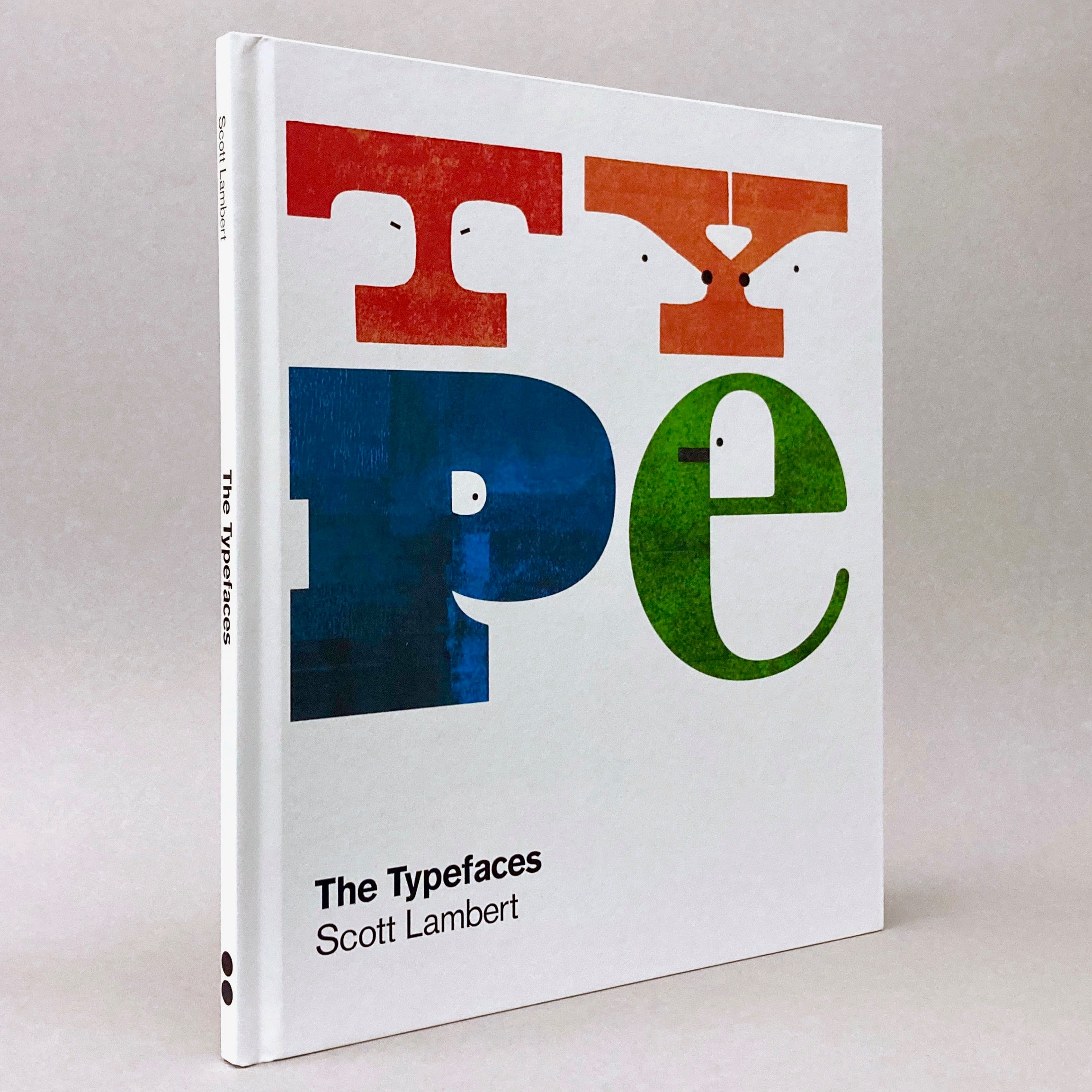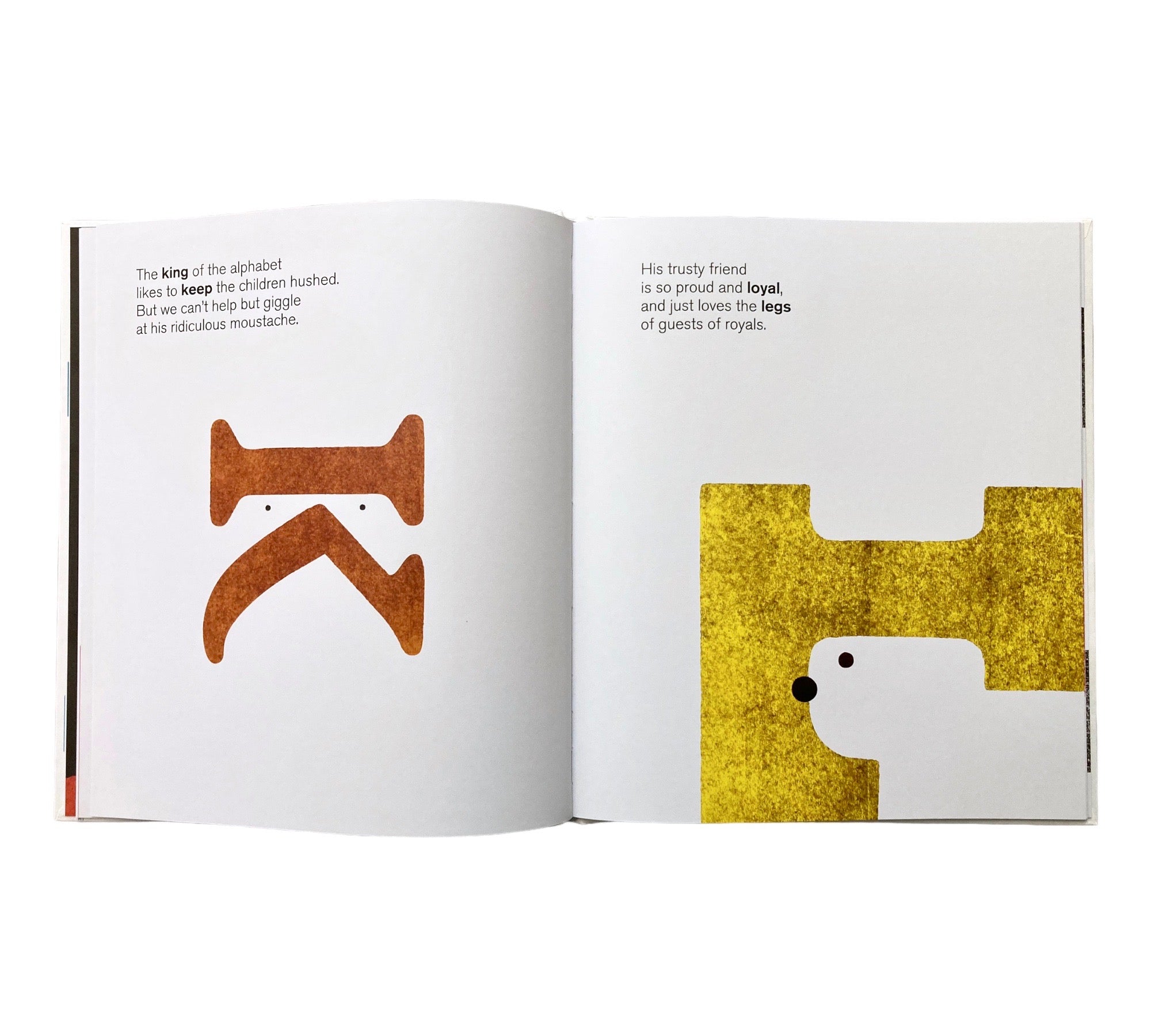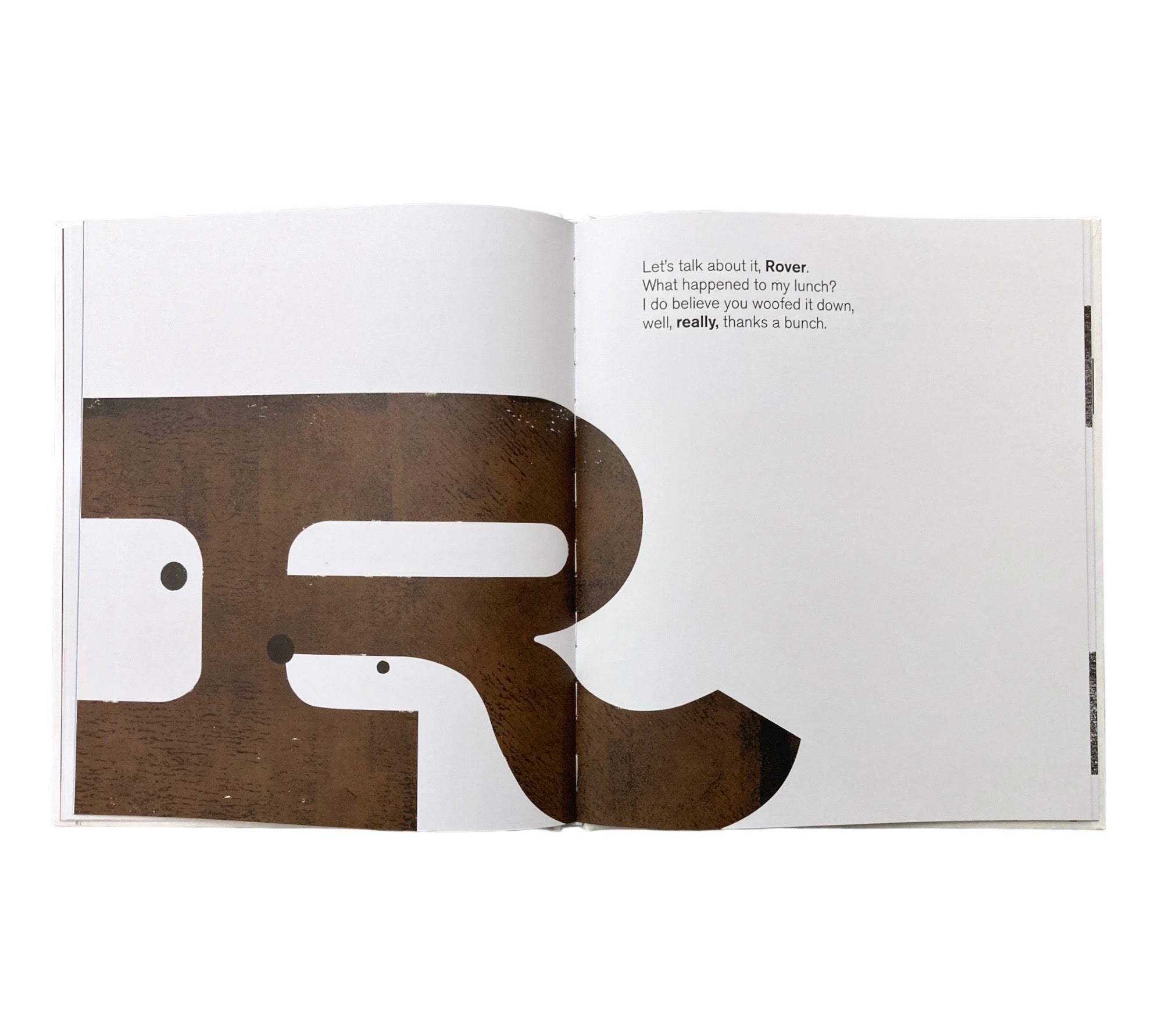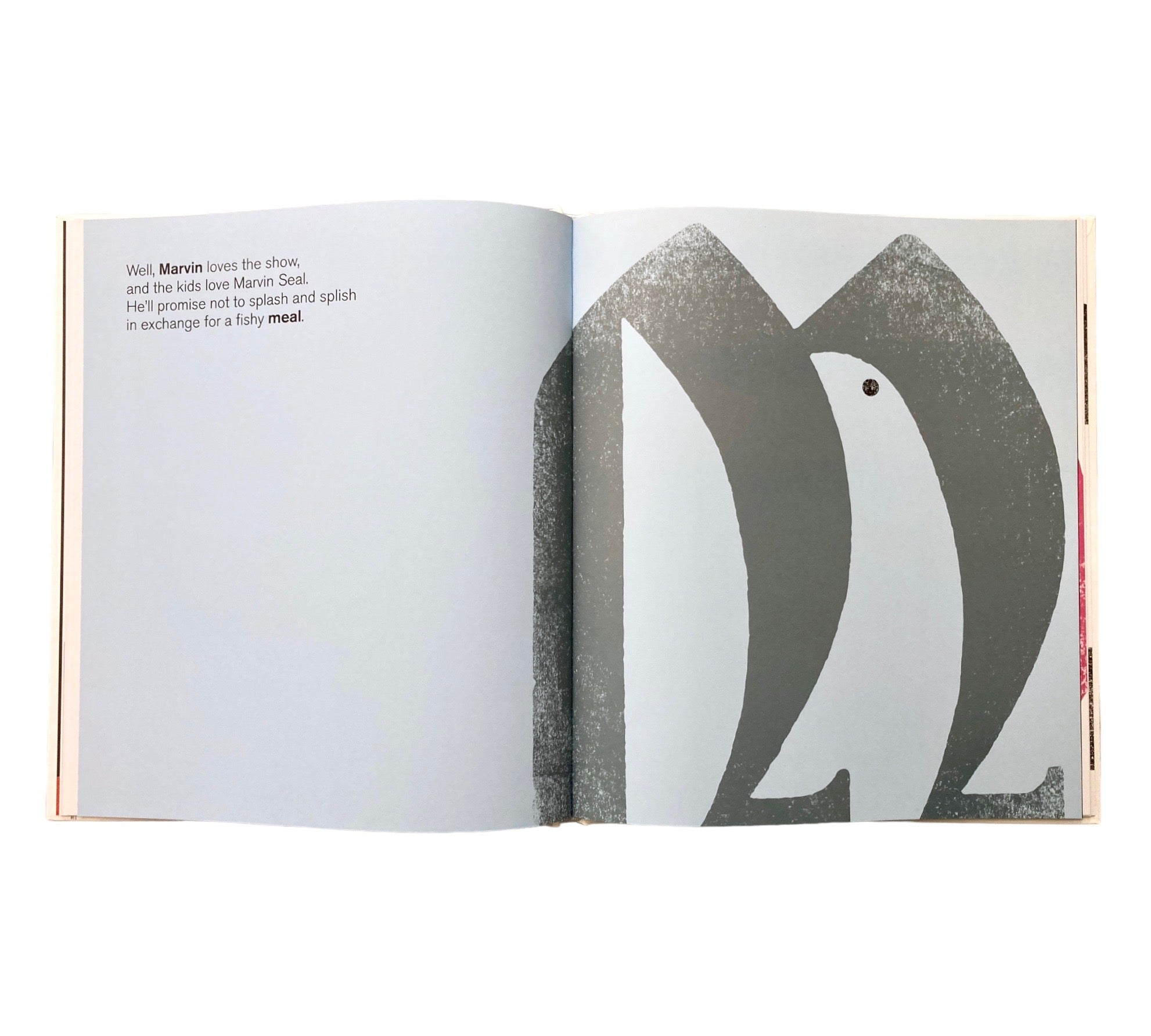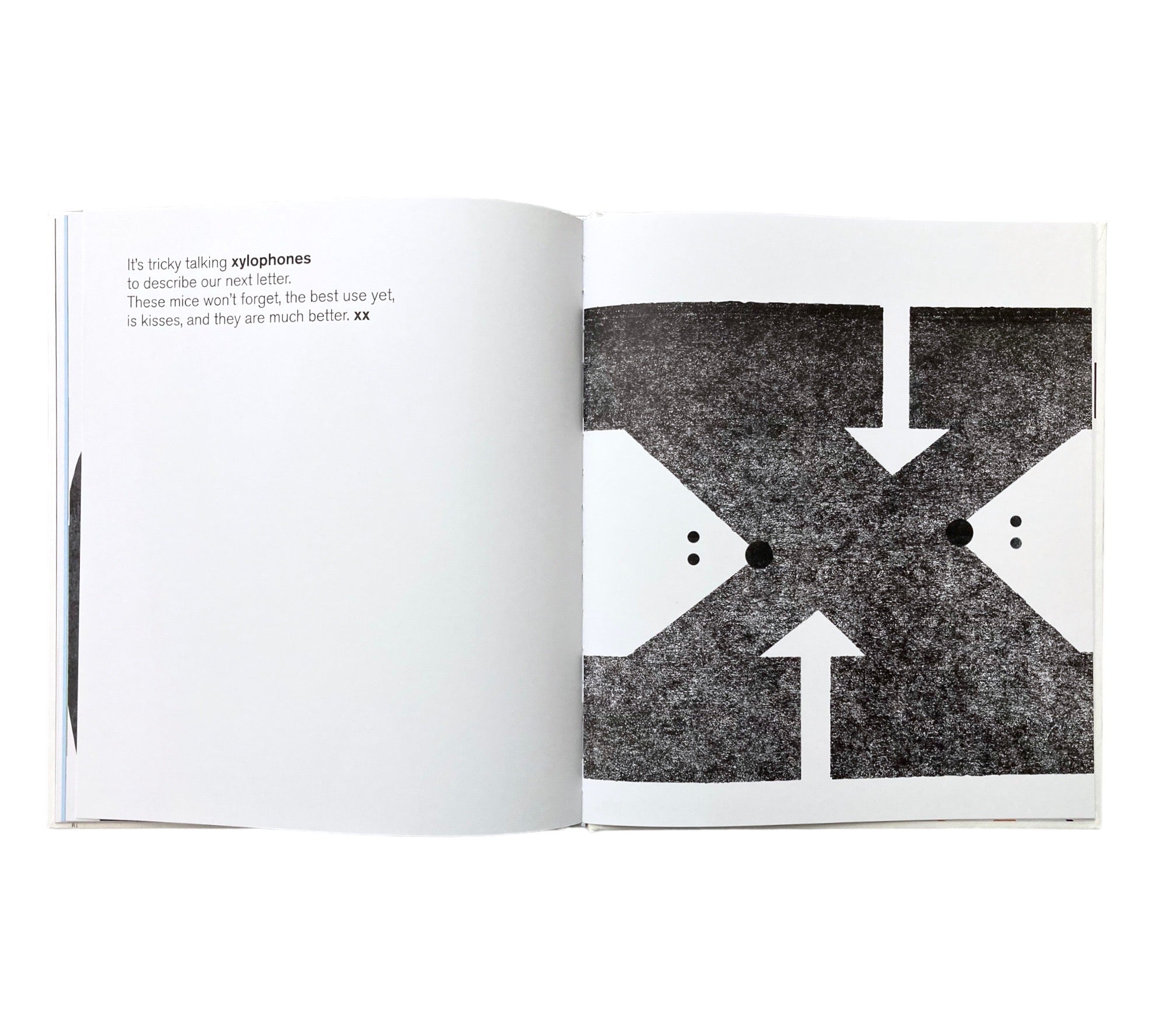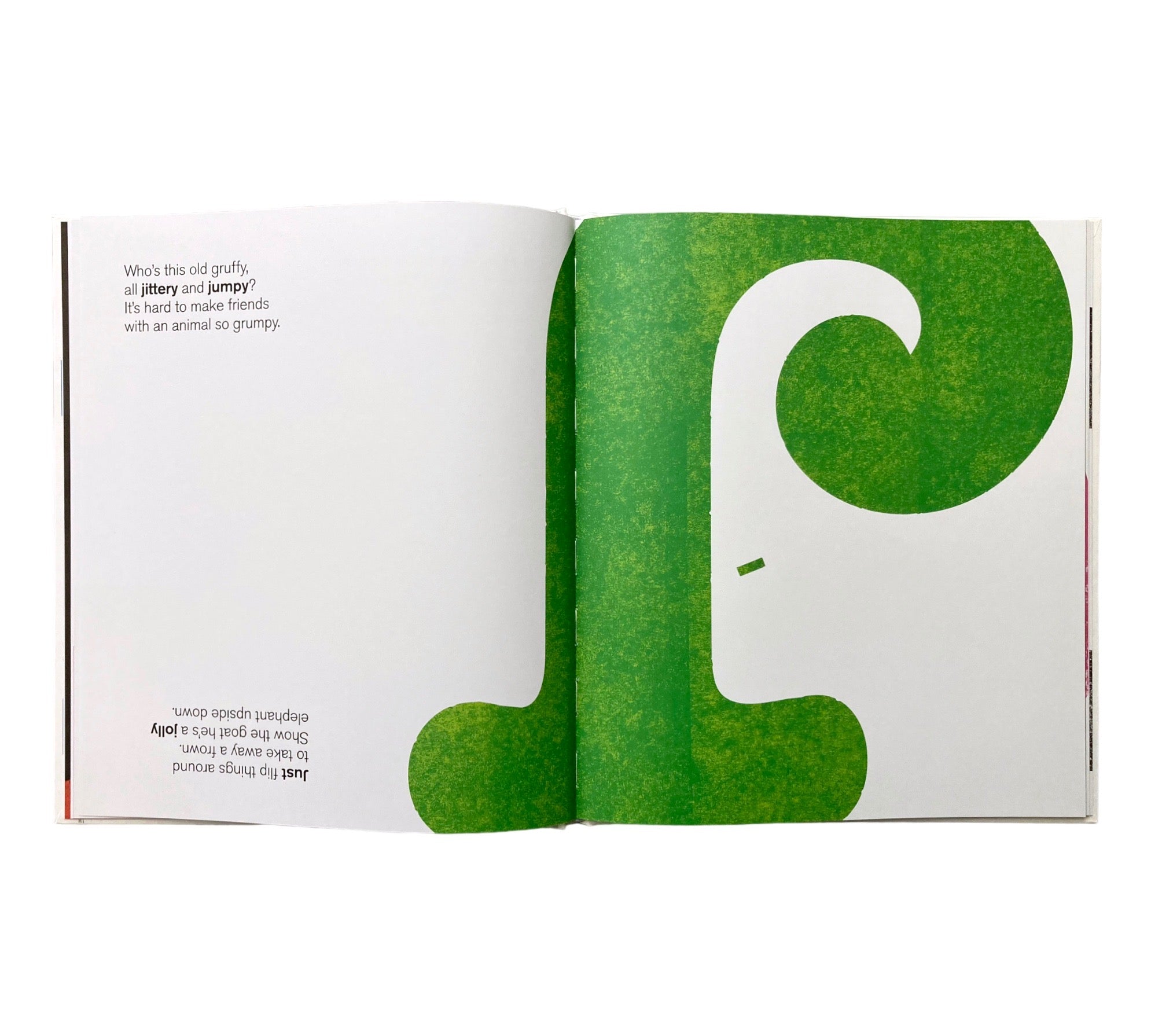
Scott Lambert
Inspired by letterpress printing and childlike observations, The Typefaces are simply faces in type. Initially self-published by creative director and graphic designer Scott Lambert in 2015, the book has gone on to win several global design awards with its wit and charm. While it still features the letters ‘A’ to ‘Z’ in different type – each paired with a rhyme about the hidden face in the negative space. It can take a moment or two to spot the ingenious use of the negative space which is brought to life by the simple placement of a few dots or lines.
Besides offering young readers a unique and compelling means to learn the alphabet, the book also hopes to encourage people to look at familiar things in different ways and elicit delight in new discoveries. In Scott’s own words, The Typefaces is for the designer in every child, and the child in every designer.